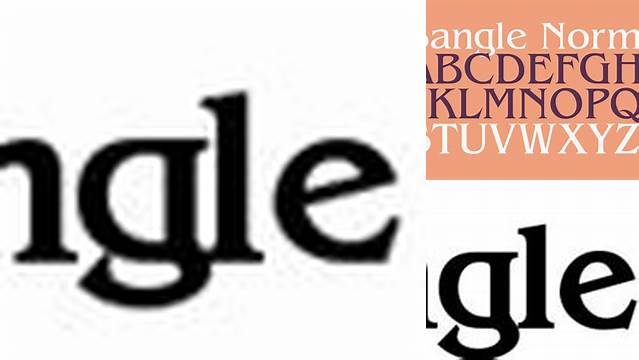
What Makes Bangle Extra Bold Font Special?
Alright, let's talk about why the Bangle Extra Bold Font is such a big deal. First off, it's got that awesome, chunky vibe that's perfect for grabbing attention. Think headlines, posters, logos – anything where you want your message to scream, "Hey, look at me!" The extra bold weight is the key here; it provides a strong visual impact that's hard to ignore. Plus, it carries a modern, clean aesthetic that is quite versatile. Now, because of the extra bold weight, it is easily readable even at a smaller size. It's not just about aesthetics; it's about usability. This font will ensure your text is clear and legible from a distance or on a screen. It's a fantastic choice for branding. It communicates confidence and authority. When you're crafting a brand identity, the font can significantly impact how your audience perceives your business or project. It helps to establish a strong presence. Bangle Extra Bold provides a solid foundation for your visual communication. You can use the Bangle Extra Bold Font in various projects, from websites and social media graphics to print materials. This adaptability makes it an indispensable tool for designers. Its bold lines and clean design allow it to complement various design styles, from minimalist to more elaborate layouts. So, basically, it is a must-have in your font arsenal!
The Beauty of Bangle Font: Visual Characteristics
The Bangle Extra Bold Font has several distinguishing visual traits that set it apart. Its main feature is its boldness, but it also has a clean, contemporary look that enhances readability. This font's letterforms are meticulously designed with even strokes and balanced proportions. These qualities ensure the font looks great in any size. The font's design isn't overly ornate or fussy. It means it conveys clarity and professionalism. It makes Bangle Extra Bold an outstanding option for modern design projects. The typeface is designed to be versatile, and the font's creators paid attention to detail to ensure that each character is in harmony. This careful design process ensures a consistent and attractive appearance, whether the font is used in headlines, subheadings, or body text. Additionally, many versions of the Bangle Extra Bold Font have a full character set that supports a wide range of languages and special characters. It makes it a global-friendly option for designers.
Versatile Applications: Where Can You Use It?
One of the best things about Bangle Extra Bold Font is how versatile it is. It's a fantastic choice for a variety of applications. Because of its powerful appearance, it is excellent for headlines and titles. It's especially effective in large-scale projects where you want to grab your audience's attention. You could use this font to design posters, billboards, and websites. Not only is it excellent for digital design, but it is equally effective in print media. Bangle Extra Bold is also great for creating a strong brand identity. By incorporating it into your logo, marketing materials, and website design, you can create a cohesive and memorable brand image. This typeface helps create visual consistency and makes your brand instantly recognizable. The versatility of Bangle Extra Bold makes it an indispensable tool for graphic designers, marketers, and anyone seeking to improve their visual communication. Its strong and clean design guarantees your message stands out while maintaining readability and professionalism.